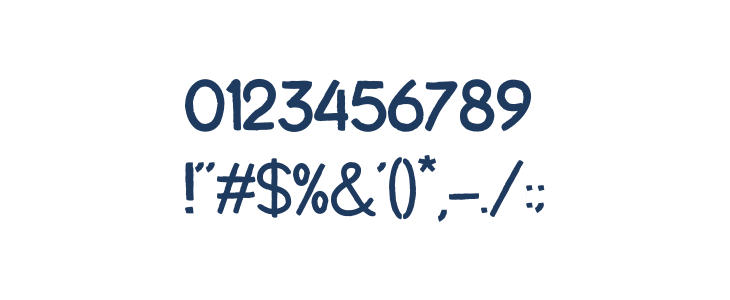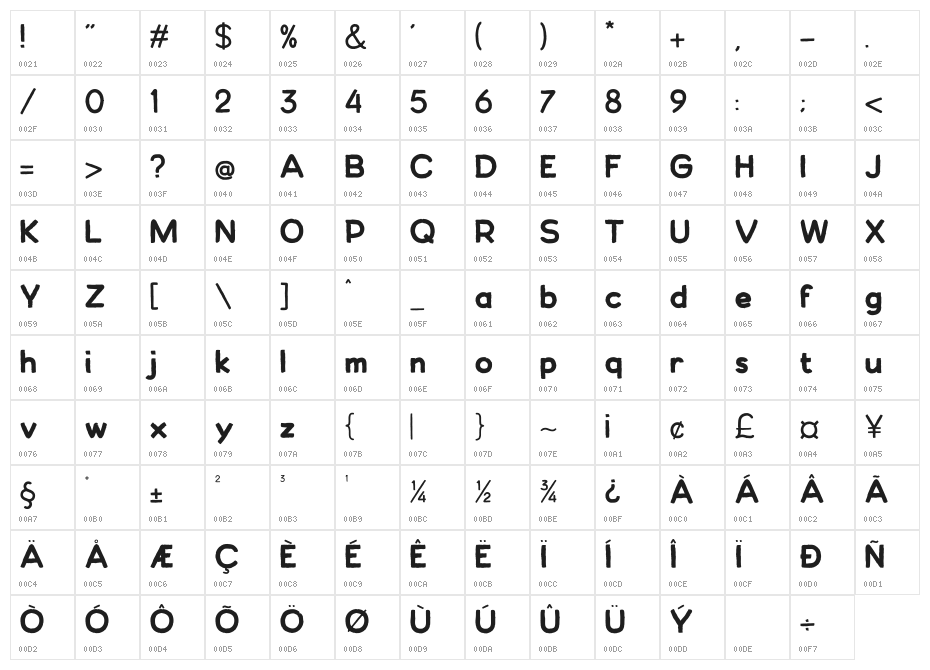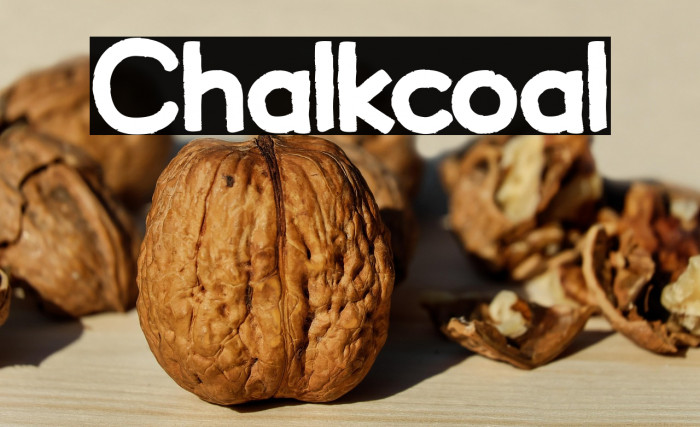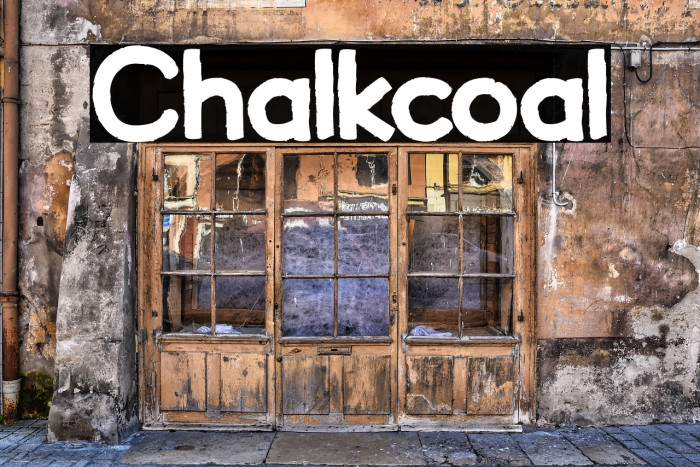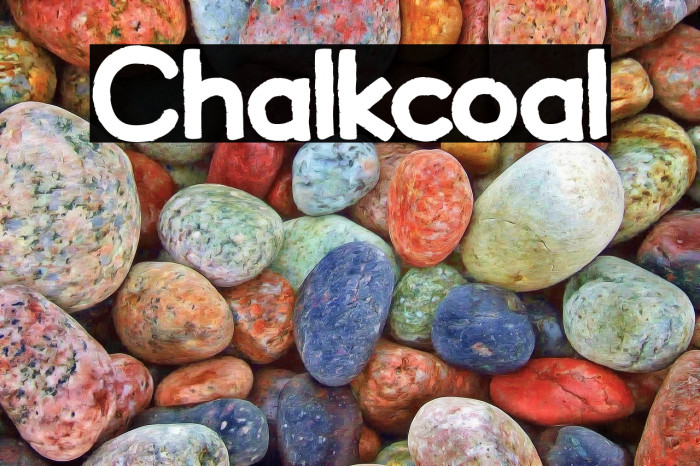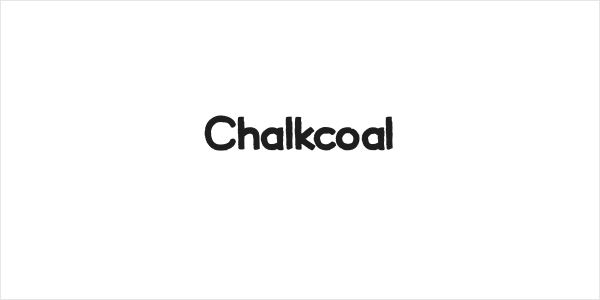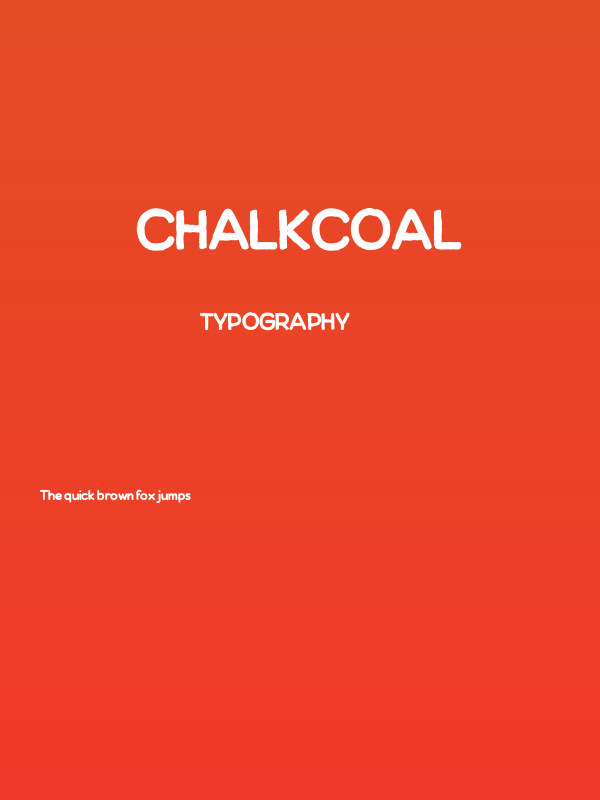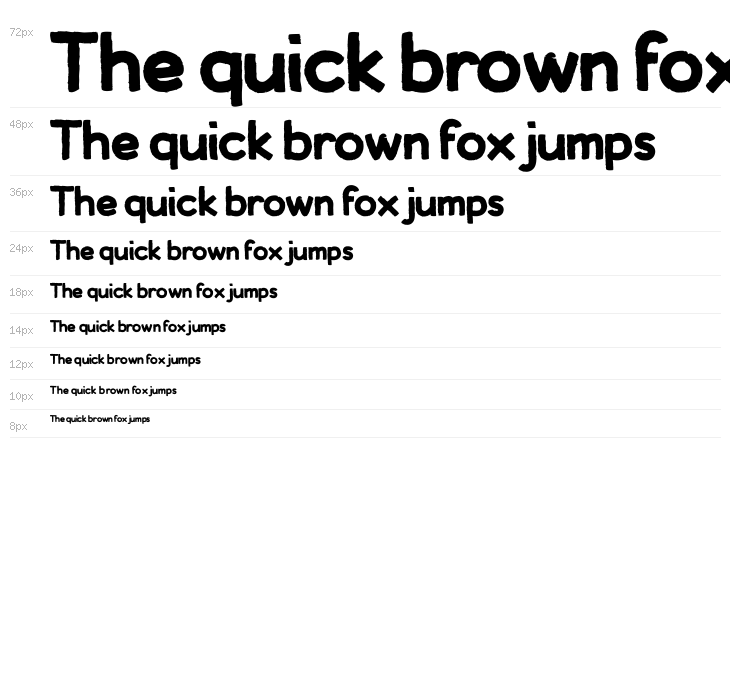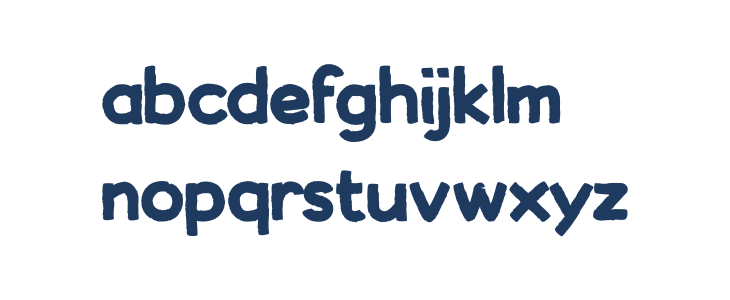
Chalkcoal Font
Chalkcoal Description
This font features a playful and bold style reminiscent of chalk writing on a blackboard. The characters are slightly irregular, giving a hand-drawn appearance that adds a touch of whimsy and informality. The strokes are thick and consistent, providing a strong visual impact. The uppercase and lowercase letters maintain a cohesive look, with rounded edges and a slightly condensed form. Numbers and special characters follow the same design, ensuring uniformity across all glyphs. This font is perfect for projects that aim to convey creativity and a casual atmosphere.
Proposed ProjectsIdeal for educational materials, children's books, creative posters, and casual branding.